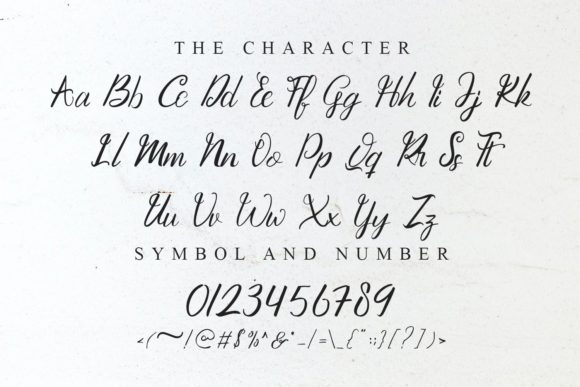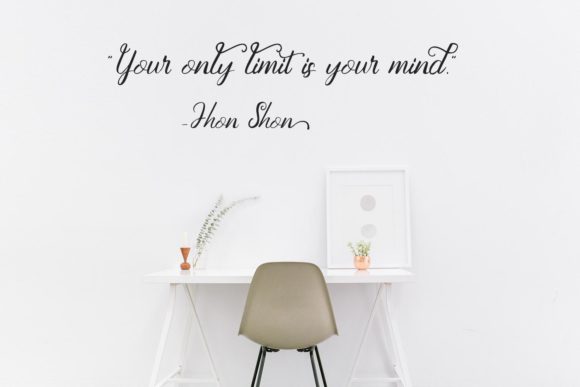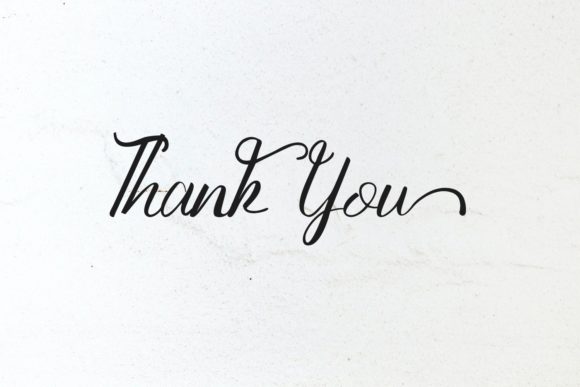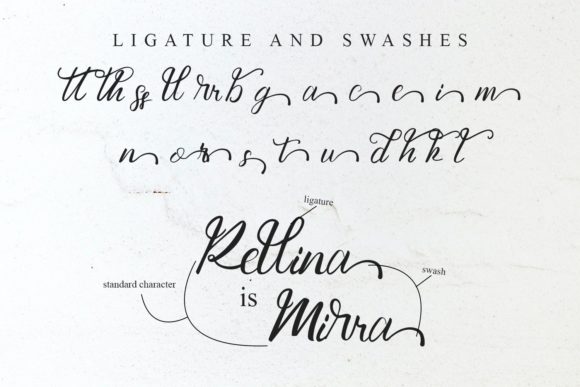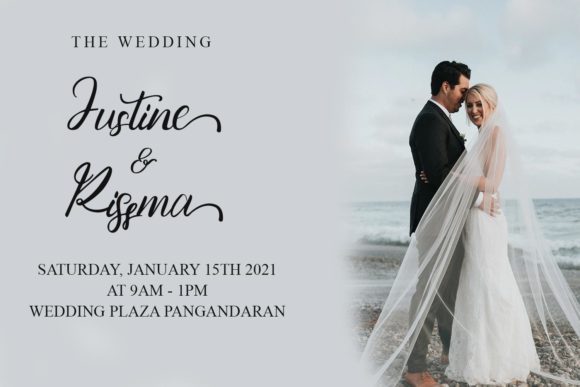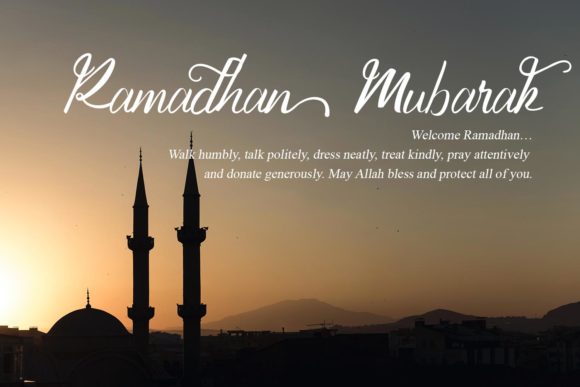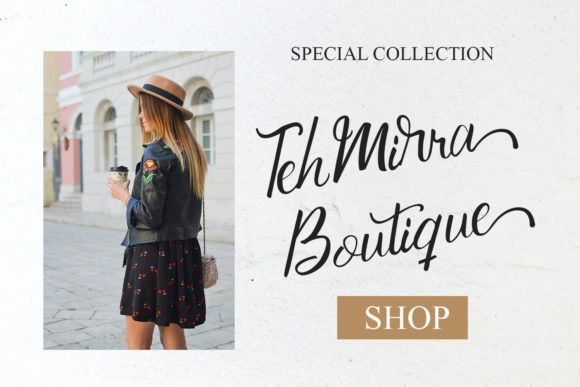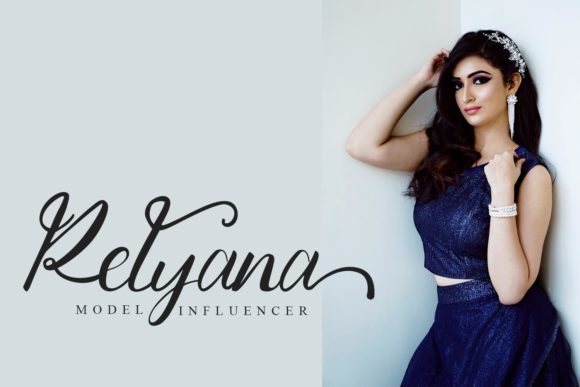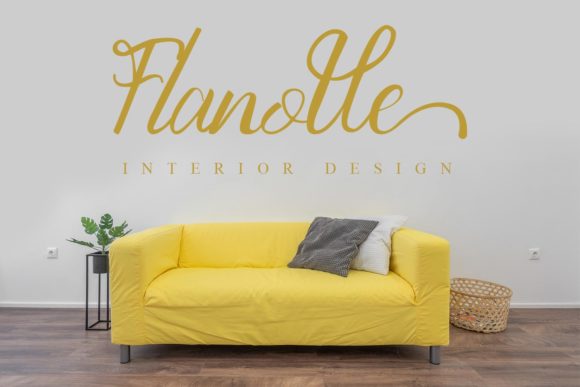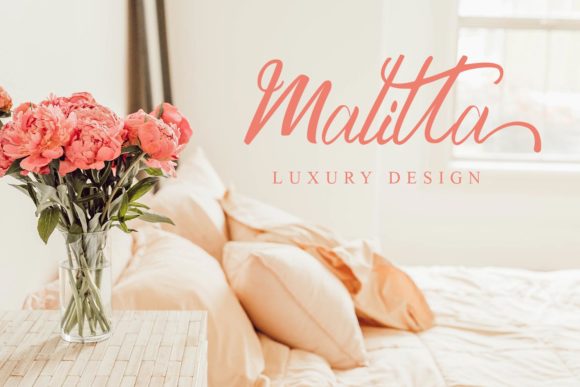
Grattenburg Font
About Grattenburg Font
Grattenburg is a stunning handwritten font that exudes elegance and grace. Its flowing and smooth lines give it a sophisticated and timeless appeal, making it a perfect choice for a wide range of projects. Whether you’re designing wedding invitations, greeting cards, logos, branding materials, or any other creative endeavor, Grattenburg adds a touch of refinement and charm.
The font’s distinct style sets it apart, capturing attention and leaving a lasting impression on viewers. Its effortless and fluid strokes create a sense of movement and grace, making your designs feel dynamic and engaging.
Grattenburg’s versatility allows it to adapt beautifully to various themes and concepts. Its elegant touch enhances the aesthetics of any project, from luxurious and upscale designs to more delicate and romantic creations.
With Grattenburg, you have the freedom to explore countless design possibilities. Its timeless appeal ensures that it remains relevant and captivating, making it an excellent choice for both contemporary and classic projects.
Whether you’re working on digital media, printed materials, or any other creative endeavor, Grattenburg’s flowing handwritten style will elevate your designs to new heights. Embrace the distinct and elegant look of Grattenburg and let it infuse your projects with a touch of sophistication and beauty.